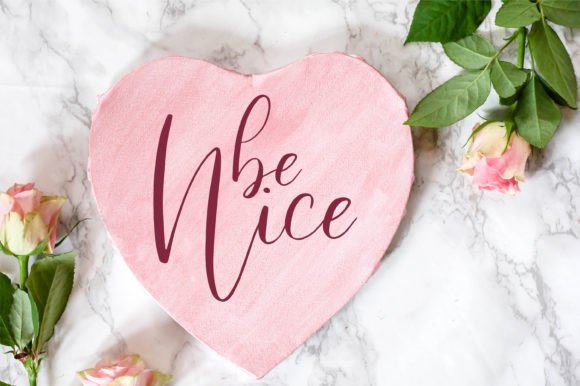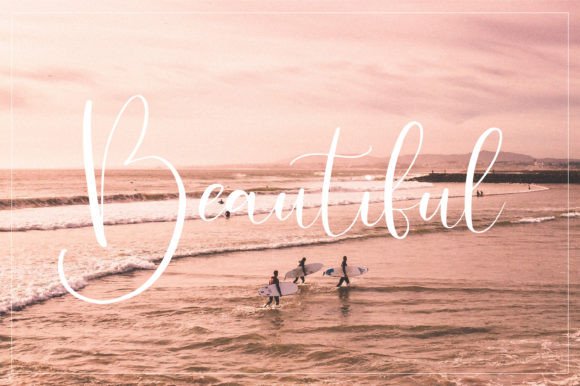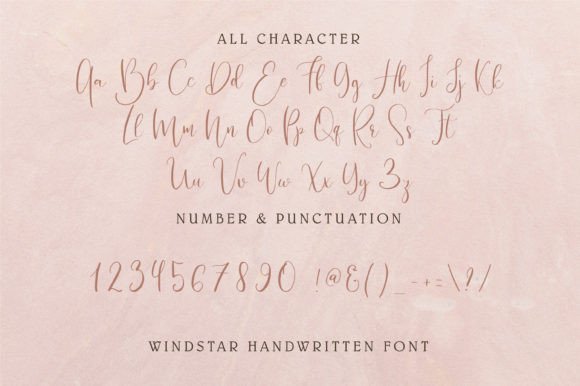
About Windstar Font
Windstar is a chic and trendy handwritten font. Use it for any design projects that require a lovely appearance! Windstar is perfect for logos, branding, wedding invitations, business cards, greeting cards, signboards, posters, magazines, social media, planner prints, crafting, and websites.